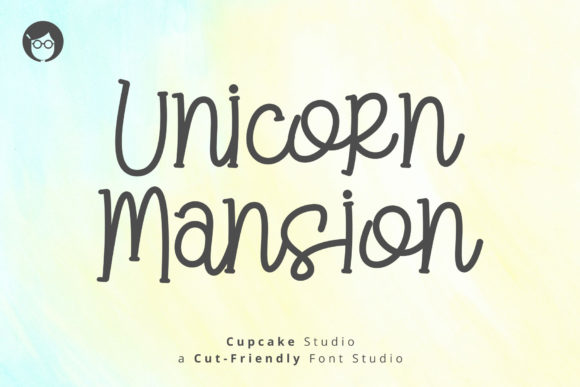
Welcome to the enchanting realm of Unicorn Mansion, a font family that will whisk you away to a world of wonder and imagination. Created by TheSundoro, this whimsical script font exudes a playful and carefree spirit, reminiscent of childhood dreams and magical adventures. Each letter dances across the page like a mischievous unicorn, ready to bring a smile to your face and capture the hearts of all who behold it.
Dive into the world of Unicorn Mansion and discover a font that is perfect for adding a touch of whimsy and delight to your creative projects. Whether you're crafting logos, designing social media graphics, or creating unique DIY projects, Unicorn Mansion will bring an element of magic to your work. Let your imagination run wild as you explore the endless possibilities of this enchanting font.
Picture this: your logo adorned with the charming curves and playful strokes of Unicorn Mansion, instantly captivating the attention of your audience. Social media posts come alive with vibrant colors and eye-catching designs, thanks to the unique personality of this font. And as you embark on your next DIY project, Unicorn Mansion transforms ordinary crafts into extraordinary creations, adding a touch of enchantment to every detail.
But Unicorn Mansion is more than just a pretty face. Its clean and slightly quirky style ensures readability and versatility, making it suitable for a wide range of projects. From children's books and invitations to greeting cards and posters, Unicorn Mansion effortlessly adapts to your needs, delivering a consistent touch of magic wherever it's used.
So, dear adventurers, embark on a journey into the realm of Unicorn Mansion and let your creativity soar. With this enchanting font by your side, every project becomes an opportunity to spread joy, laughter, and a sprinkle of magic. Embrace the whimsical world of Unicorn Mansion and let your imagination run wild!